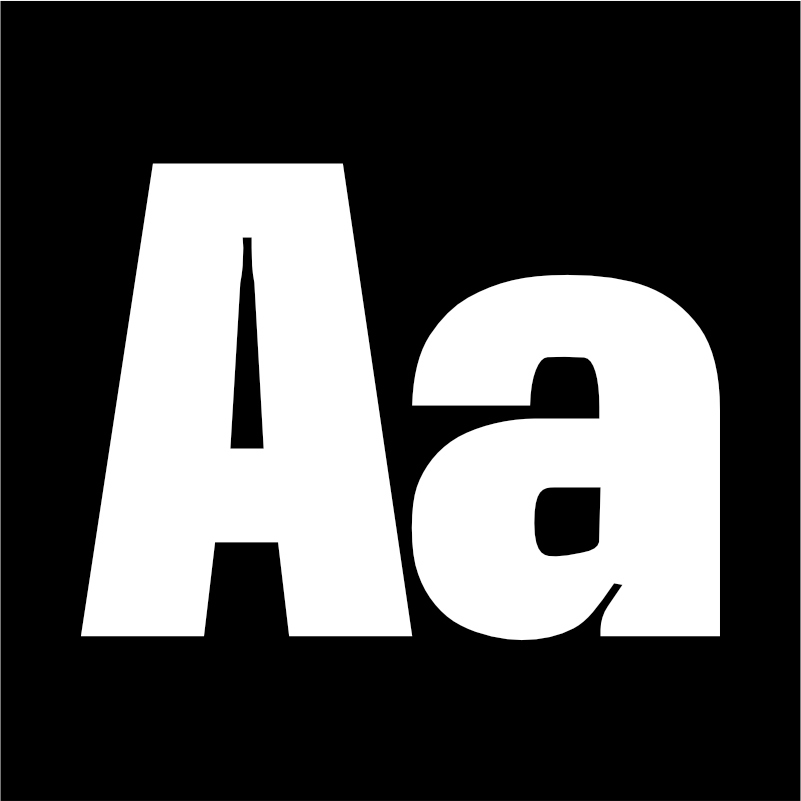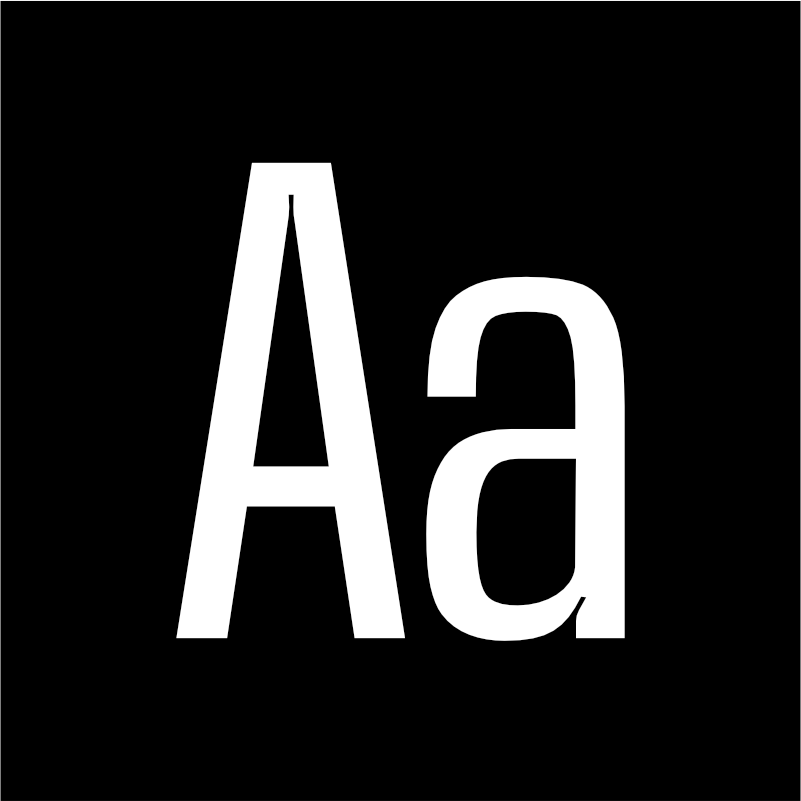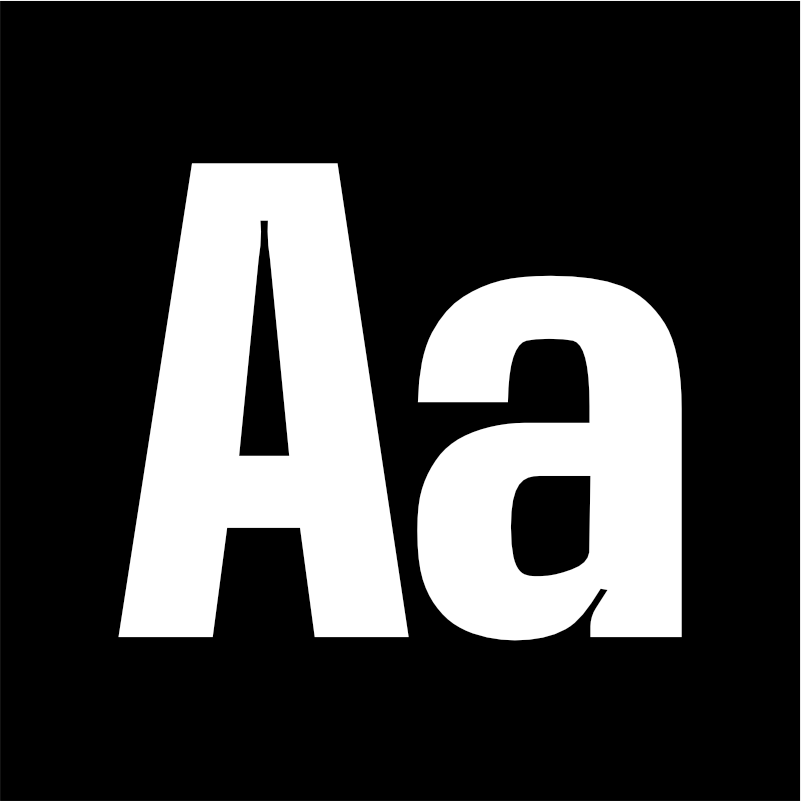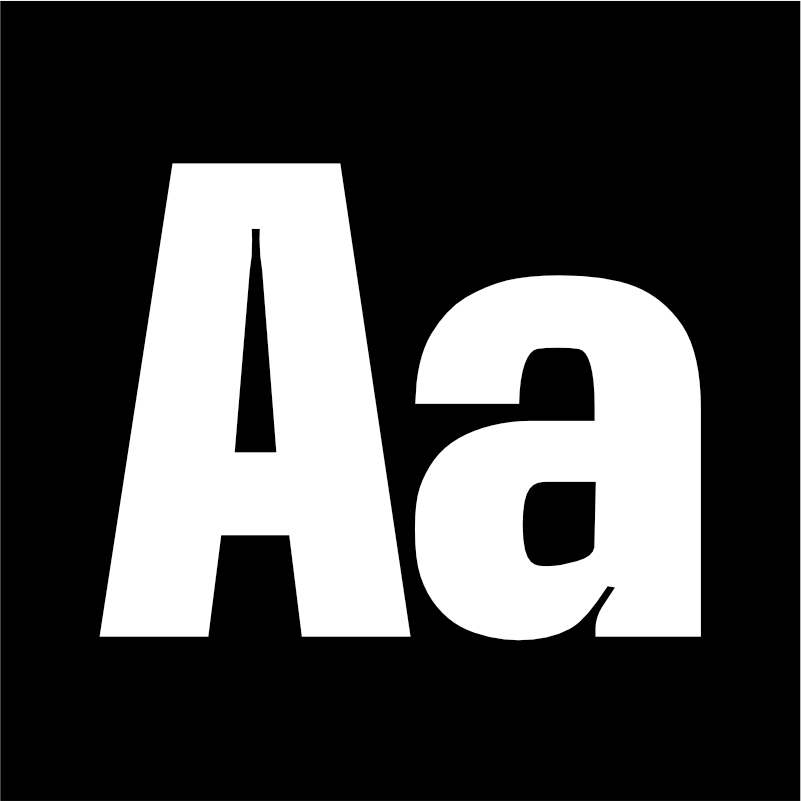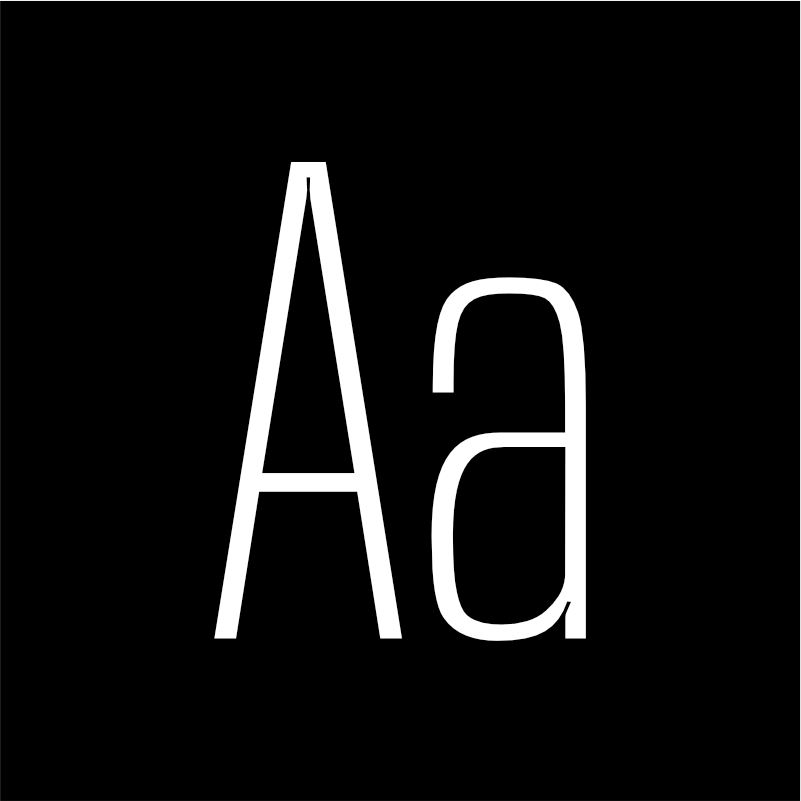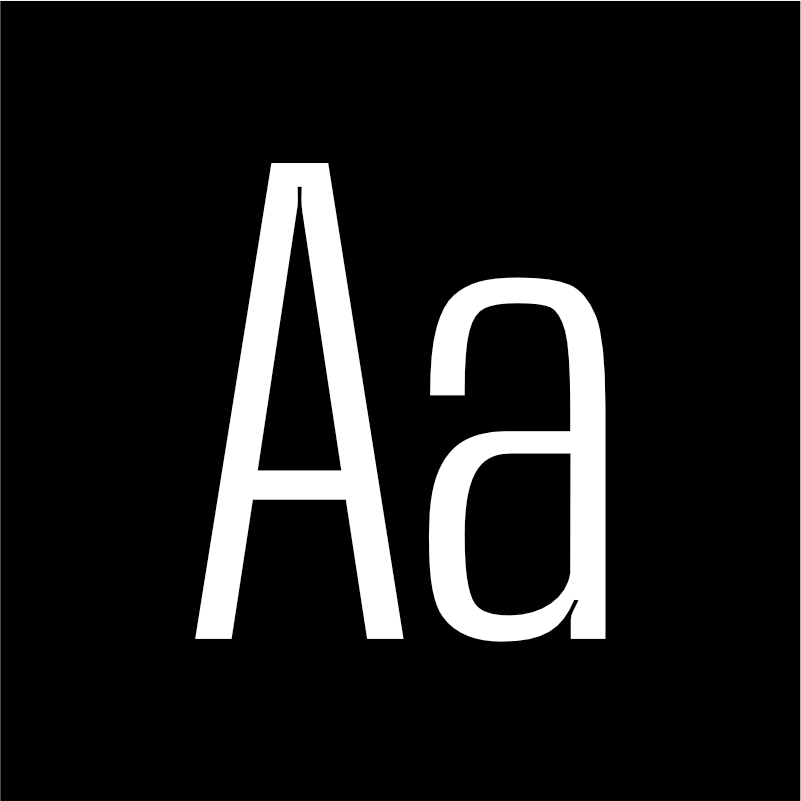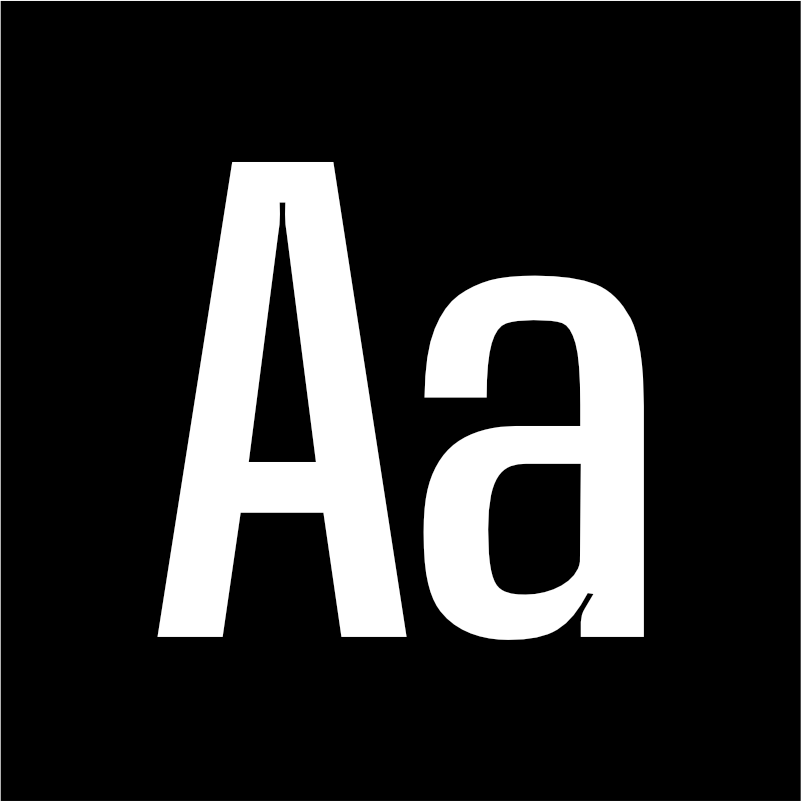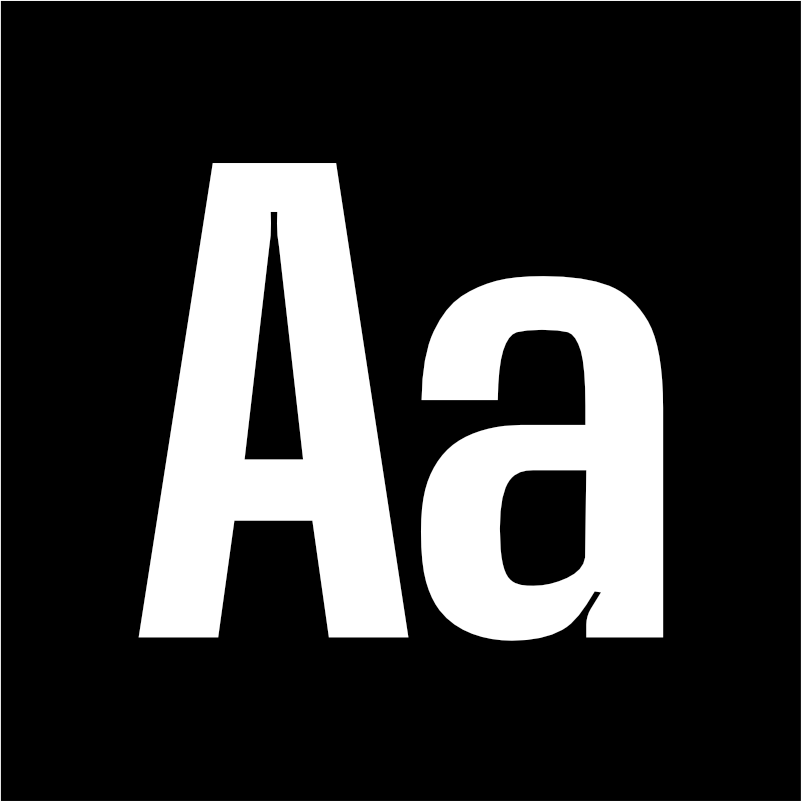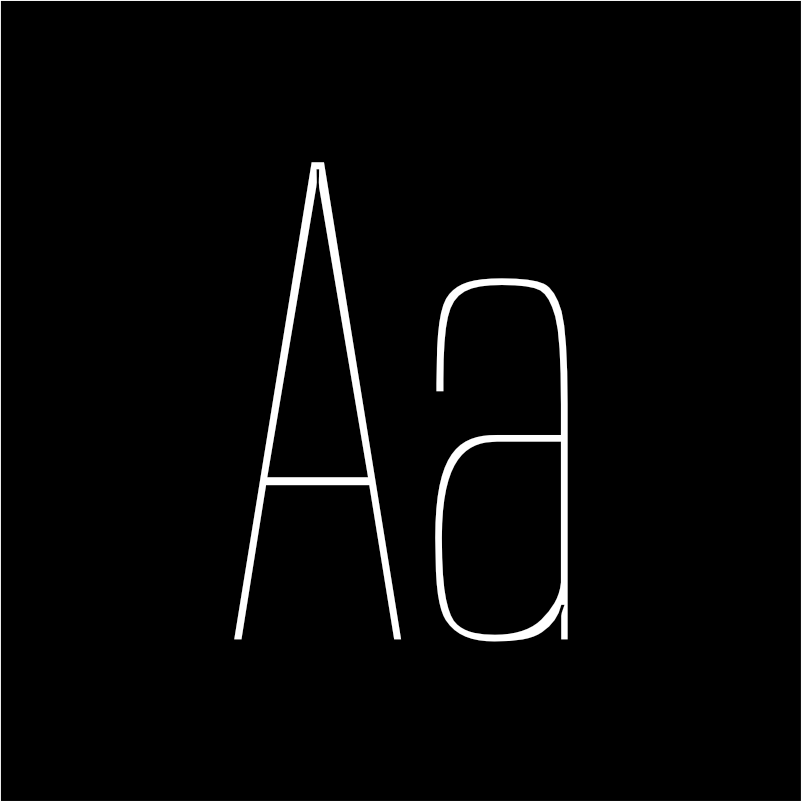
Base Neue Condensed
Base Neue is the reincarnation of the basic typography (adaptation) of modern civilization. InkTrap is applied and many variations that can be used for this typeface, from very narrow media to extra-large publications.